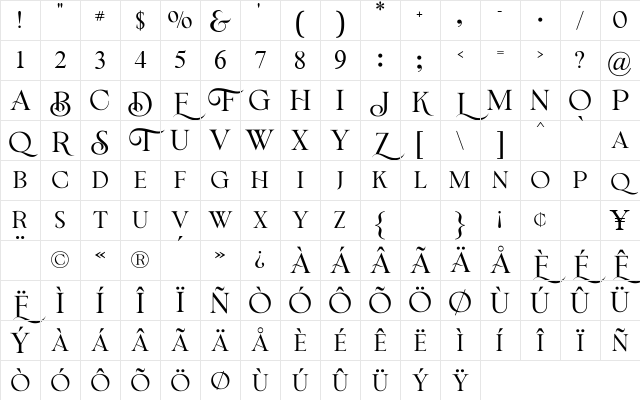
Bricktown Regular Free Font
Bricktown Regular
Foundry: Kong Font
Designer: Kong Font
Design Context for Bricktown
Bricktown is a composed and adaptable typeface that performs quietly and consistently across a wide range of design contexts.